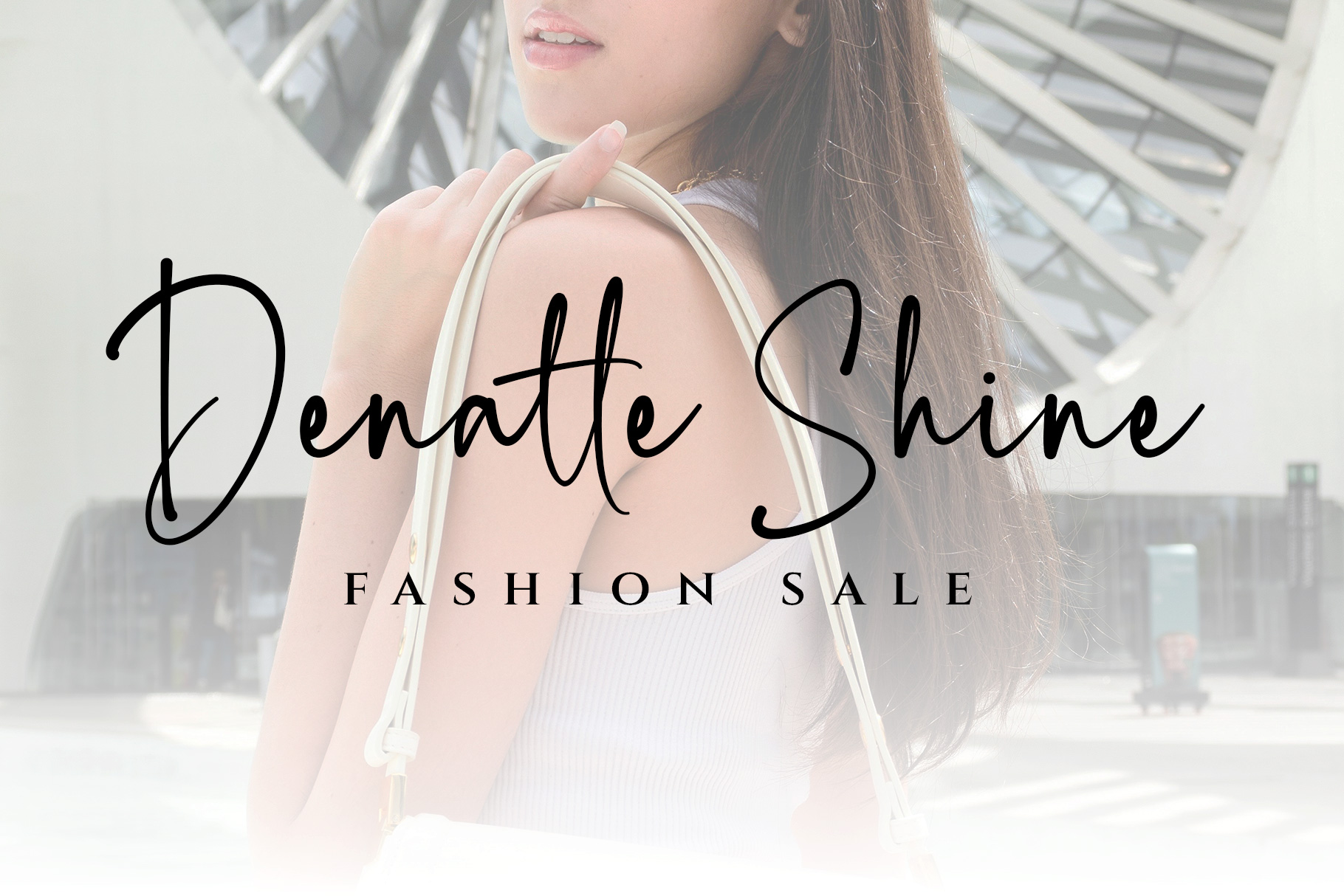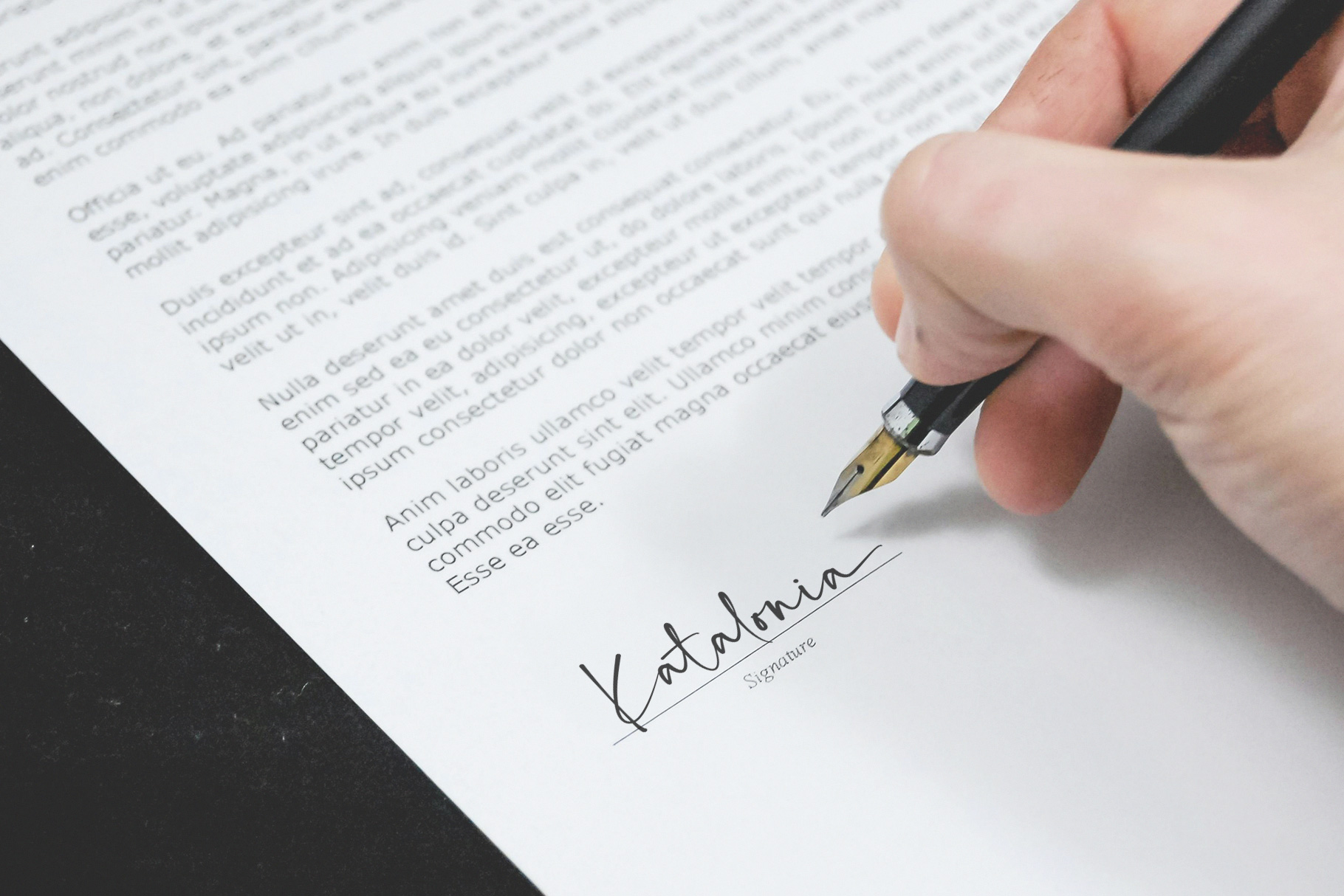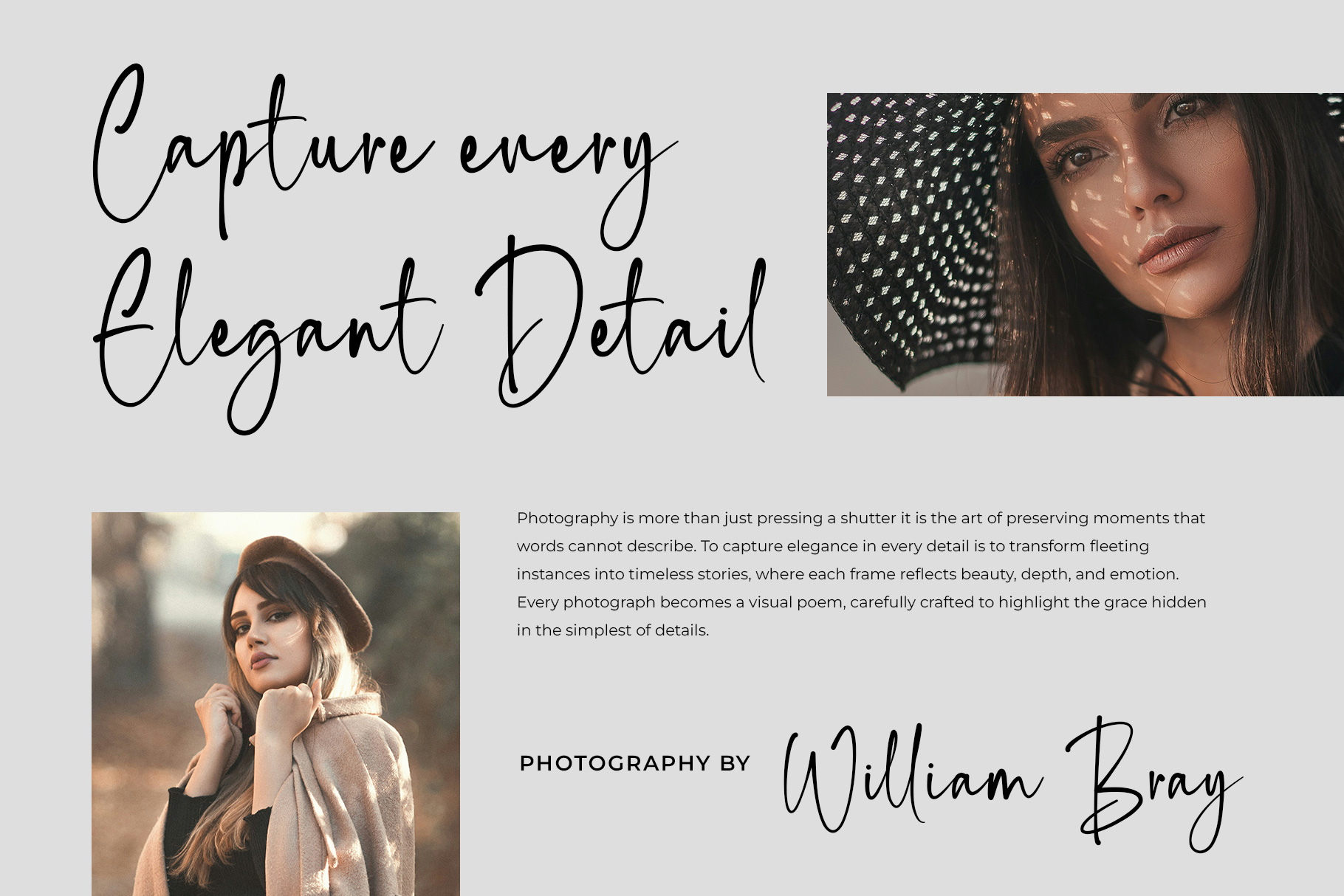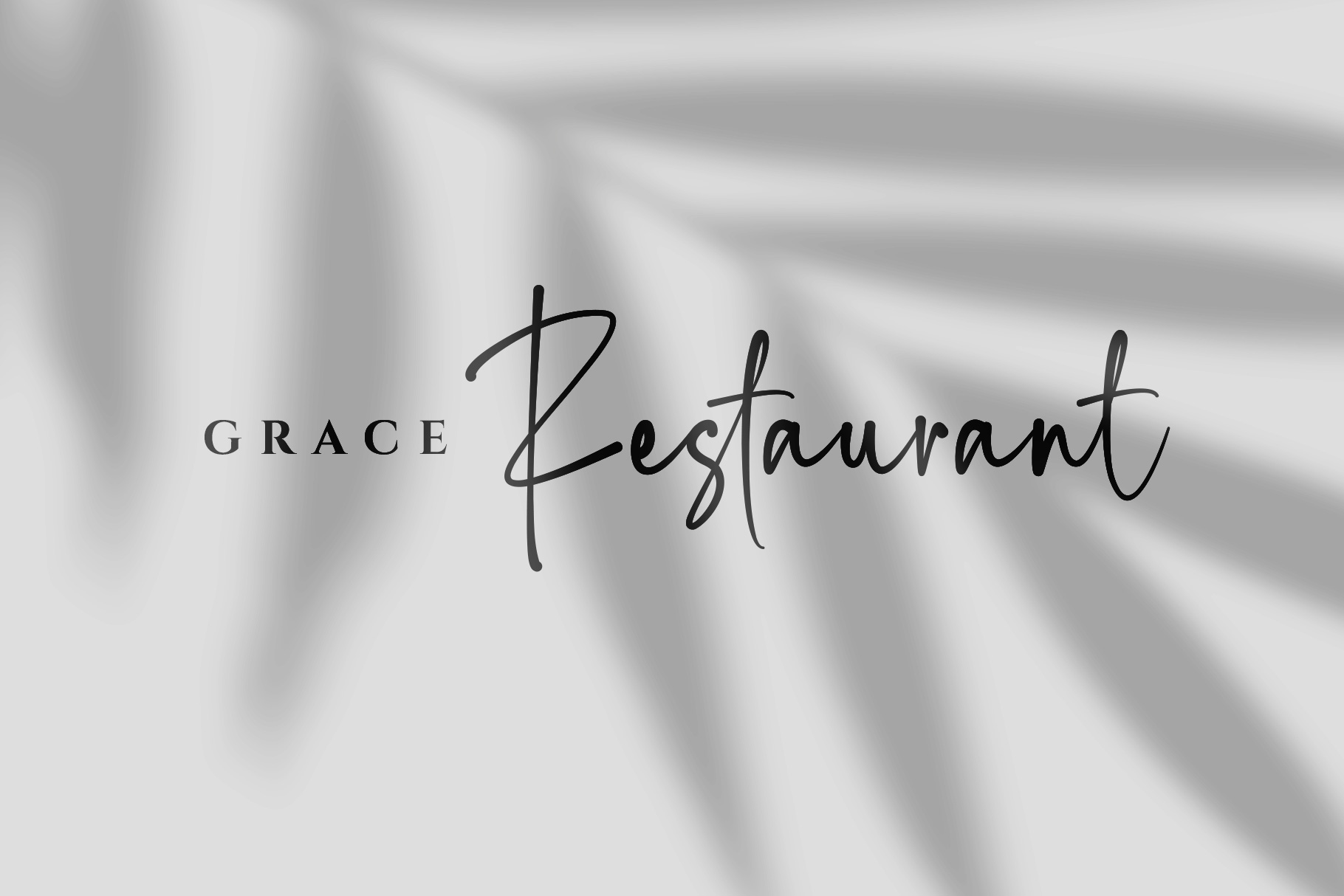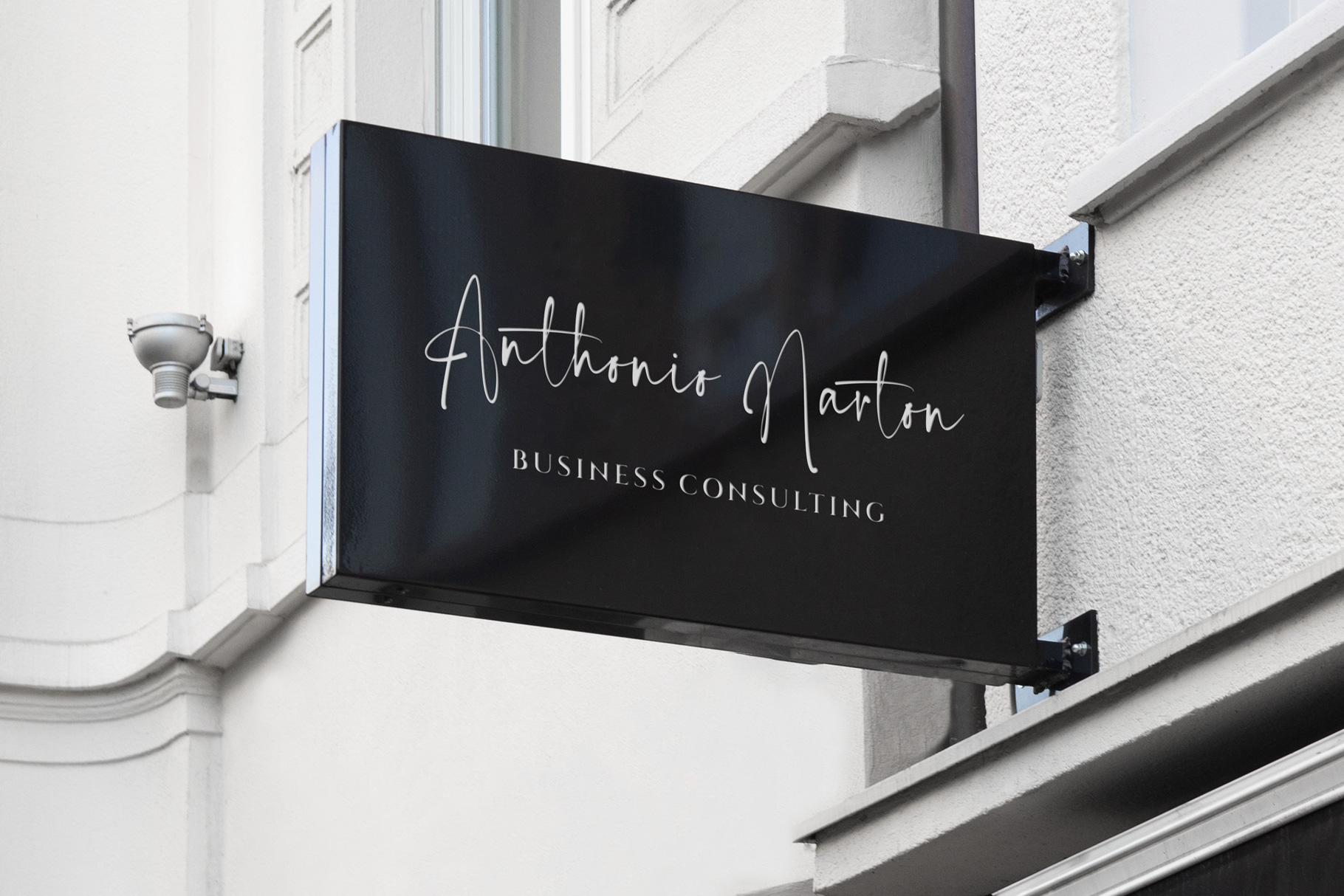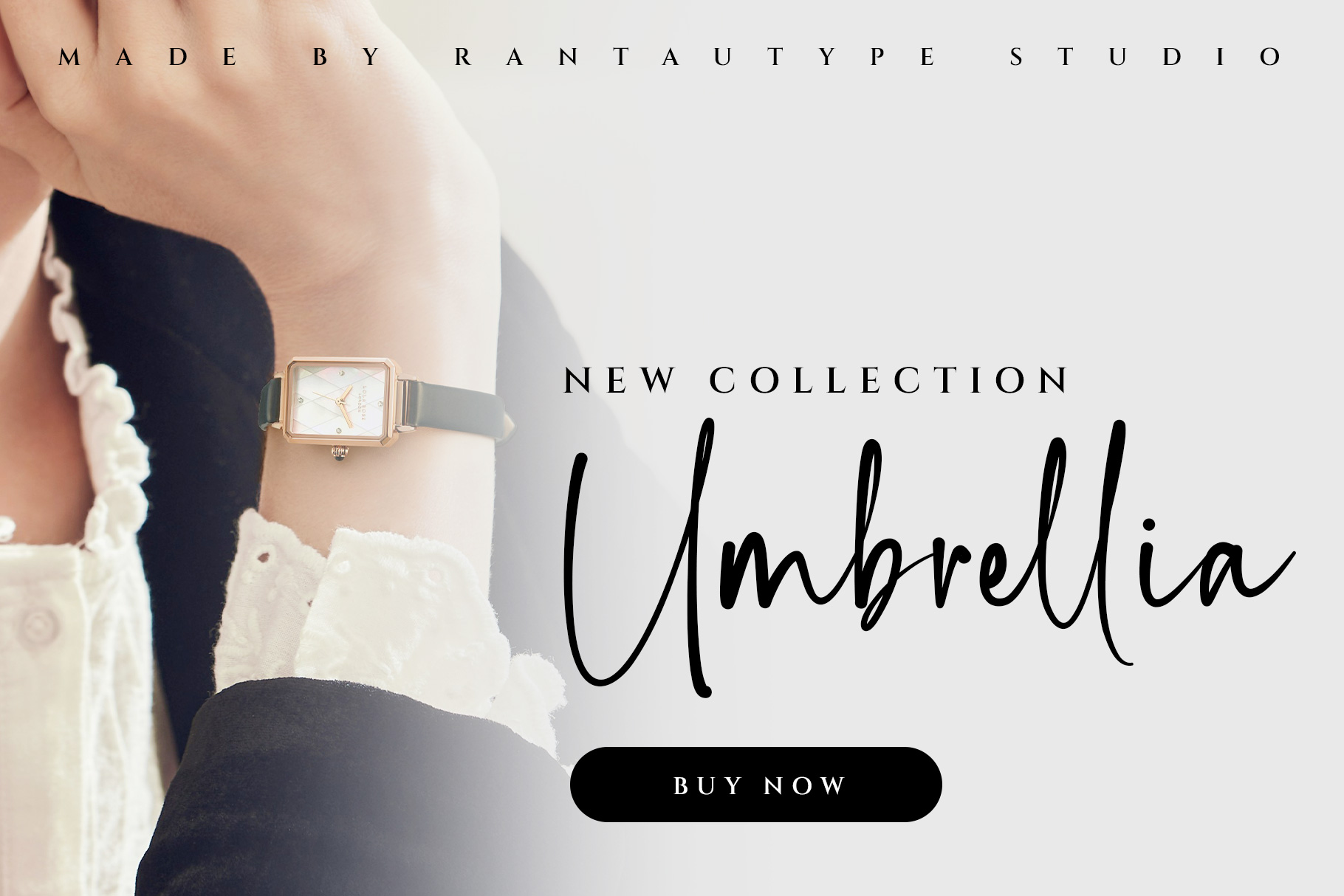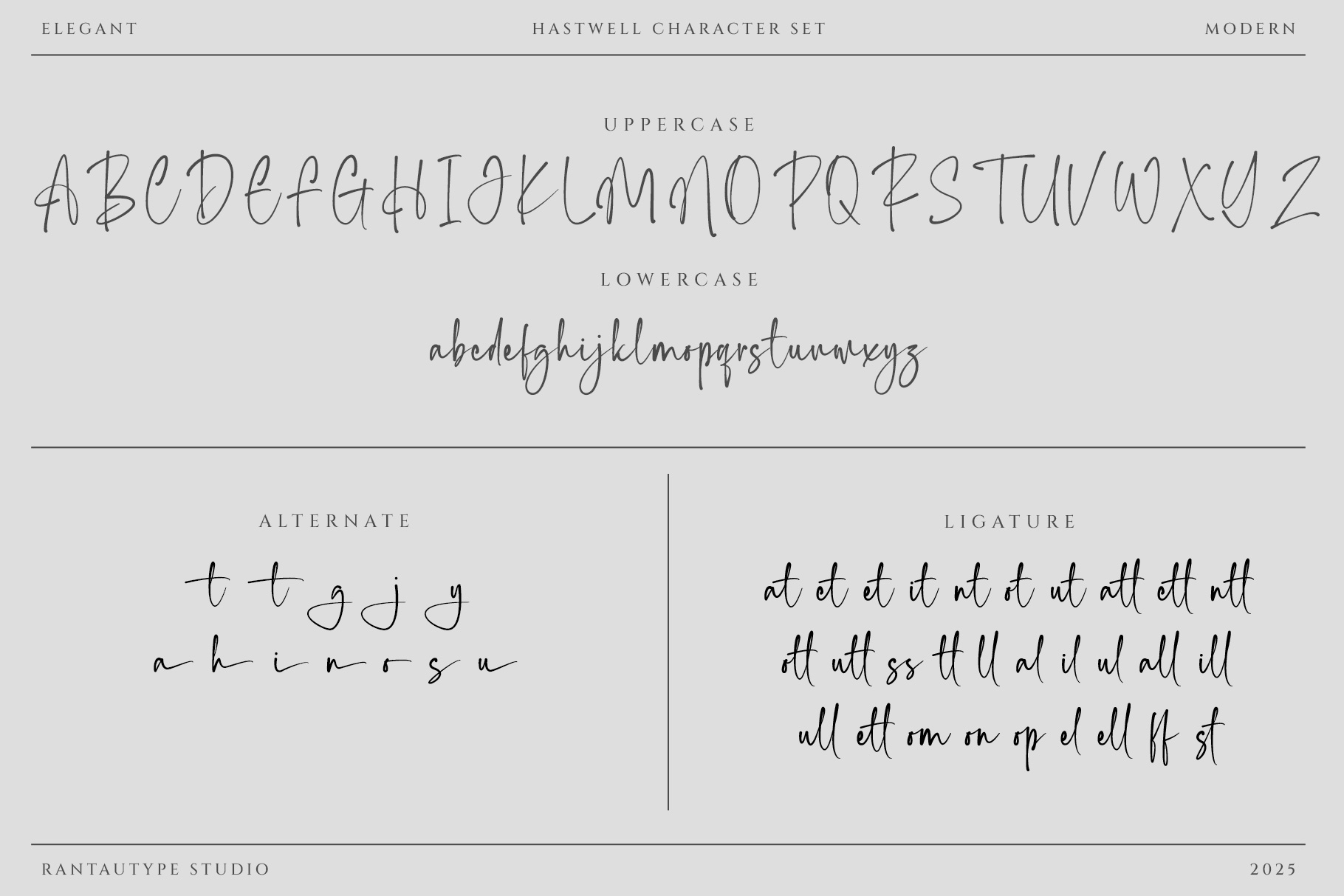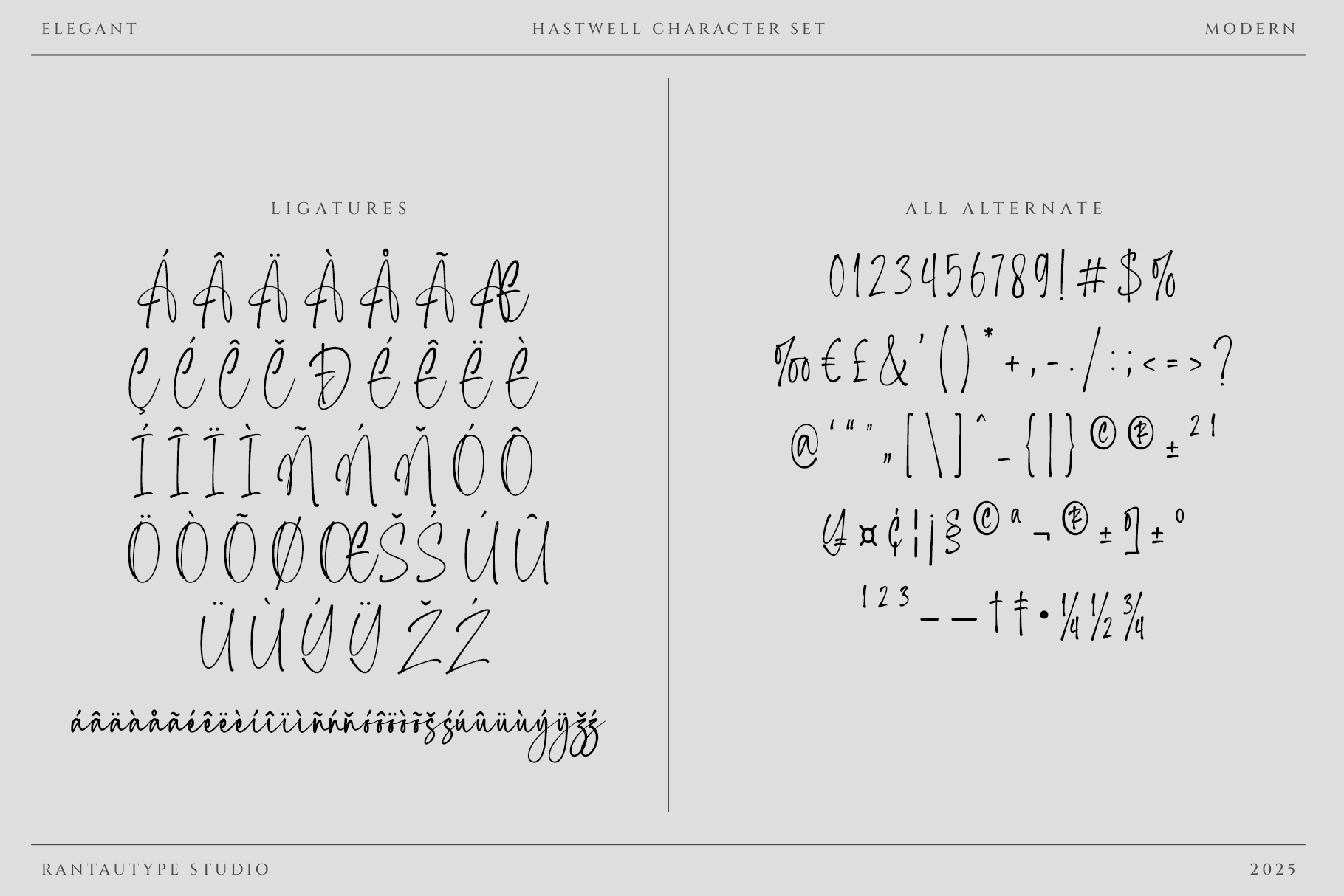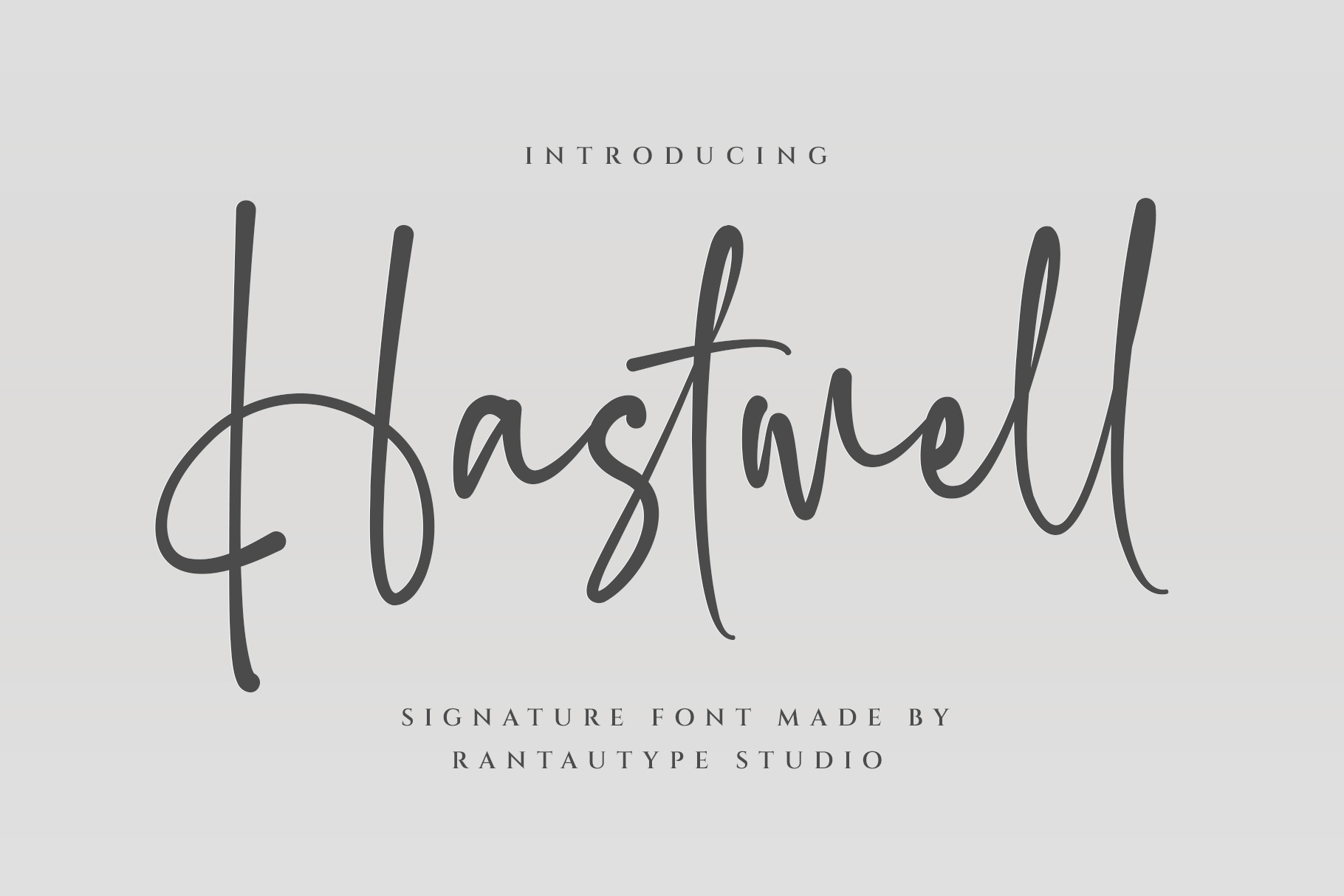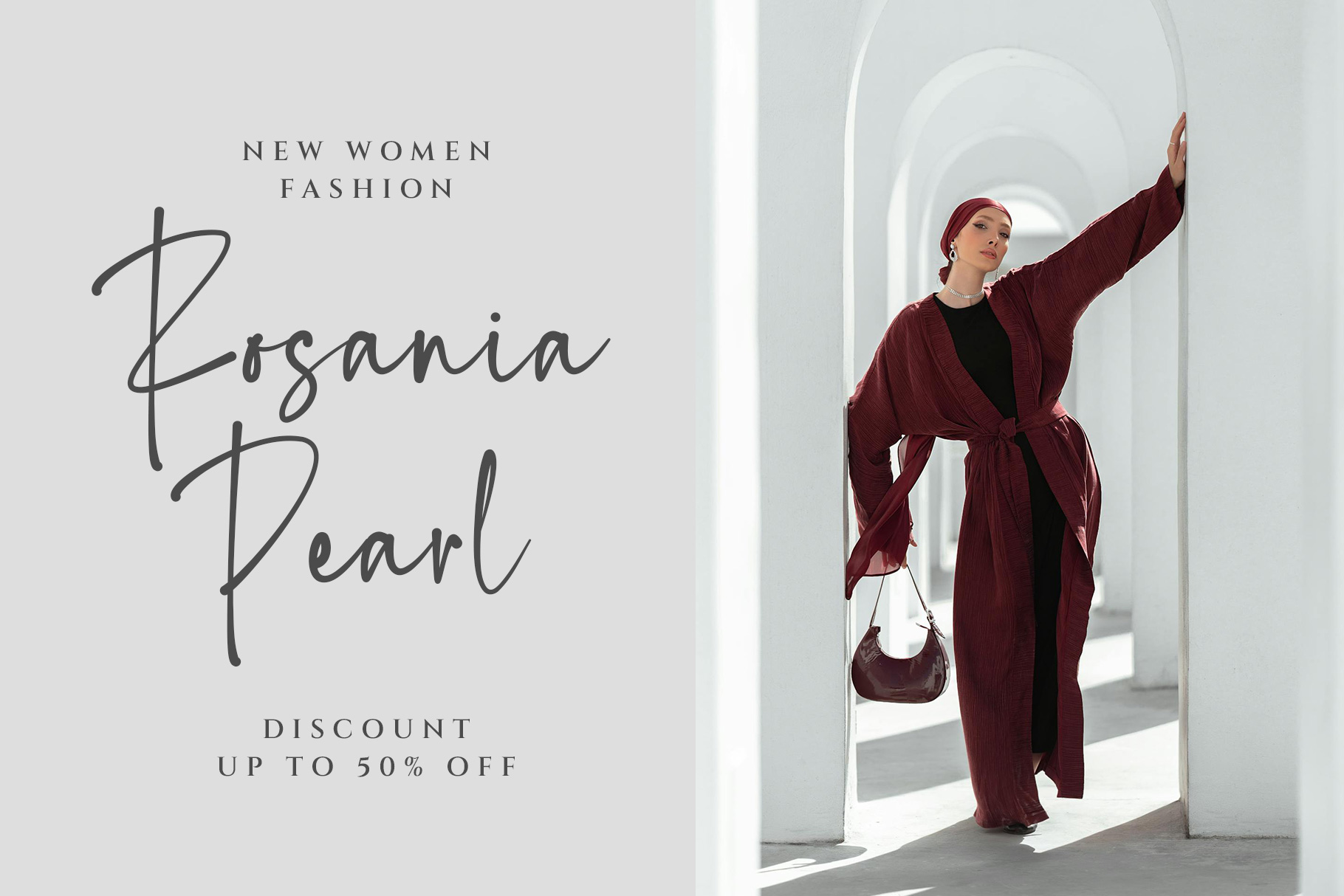
Hastwell Signature Font
Hastwell is a signature font with a minimalist look is the perfect blend of sophistication and simplicity, designed to capture the essence of elegance in its purest form. This type of font carries the fluidity of natural handwriting, combined with clean lines and uncluttered details that bring a sense of modern refinement. Its graceful strokes and subtle curves create an authentic handwritten feel.
Hastwell is a perfectly choice for any creative endeavor, creating, modern, lifestyle design such as logotype, title, cover, branding, invitations, wedding designs, display and magazine, social media posts, advertisements, printed quotes, product packaging, corporate brand, product designs, labels, photography, watermarks, special events and any other project with elegant touch.